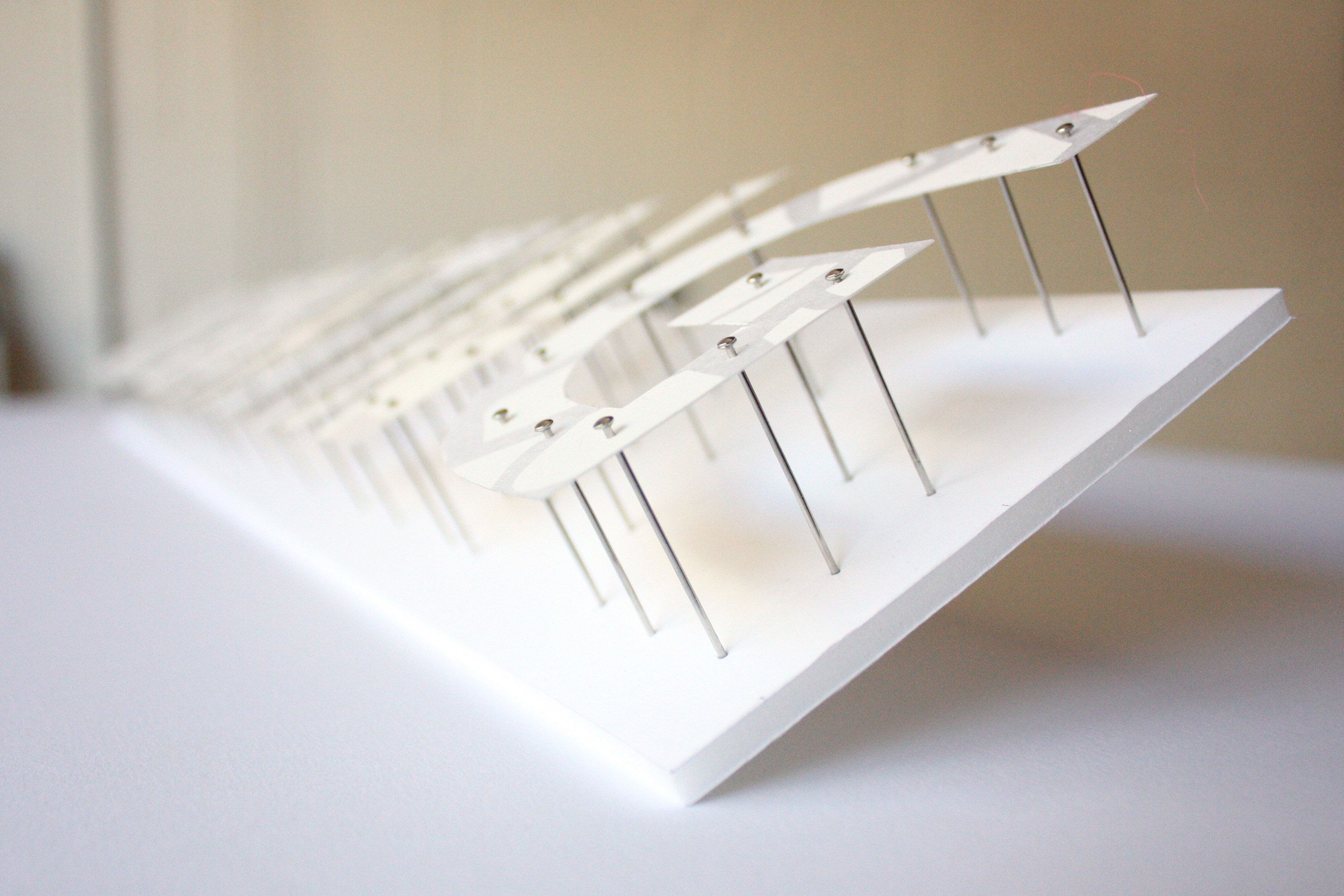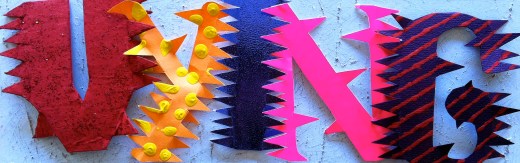
‘Bonkers’ by Oli Frape
‘Bonkers’ by Oli Frape
An ode to Danny Boyle
“Sarah asked me if I’d like to respond to the brief with the word ‘bonkers’ as an ode to the wonderful Danny Boyle and the incredible London 2012 opening ceremony that he created.”
‘Wild’ by Emily Bornoff & ‘Fish’ by Lydia Thornley
‘Wild’ by Emily Bornoff
Emily Bornoff is an illustrator and surface designer. Born and raised in London, she takes inspiration from all over the world, with a particular love for Scandinavian design. Her father was an antique dealer so growing up with so many beautiful objects and furniture around her has influenced her use of antiques and vintage objects in her work. She has a particular obsession with 1950’s illustrators, textile designers and ceramic artists.
Bornoff also loves drawing animals and nature in her work and is a keen supporter of animal welfare. She screenprints, works in relief, lithography and uses digital print on books as well as textiles and ceramics.
‘Fish’ by Lydia Thornley
‘Vying’ by Glenn Rickwood
‘Vying’ by Glenn Rickwood
Rickwood has been a graphic designer for 20 years and is currently studying for an MA in Applied Imagination in the Creative Industries at Central Saint Martins. His research is into analog vs digital design.
‘Gems’ by Syd Hausmann
‘Gems’ by Syd Hausmann“When I got the brief for this project, one of the first things that popped into my head were the colourful, spiky potatoes that debuted a few years on London’s bus shelters – and how much I loved them. And I thought of all the things that made the city so wonderful: the people, the things to do, the diversity, the energy.. but it’s the unexpected surprises that truly delight me. From a potato on a bus shelter to a whole new area in London previously unvisited, my word had to be: hidden gems.”
Black = GEMS
Pink = Hidden
‘Artistic’ by Anne-Louise Quinton
‘Artistic’ by Anne-Louise Quinton
“I trawled through the websites of the galleries and museums of London, looking at their fonts.  What is glaringly obvious is how many have stayed safe with a classic serif non-descript, yet elegant style.”
‘Welcoming’ by Luisa Sieiro
‘Welcoming’ by Luisa Sieiro
“I chose the word WELCOMING because when I came to London almost six years ago, I felt like this was my home. London opens its doors to all kind of people and cultures, and that is what makes it a great city.”